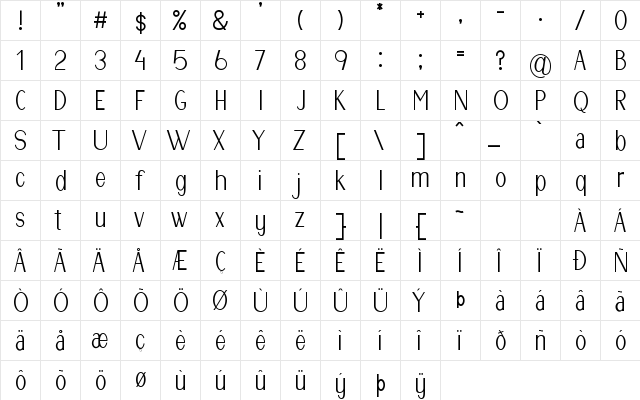
Jufatti Regular
| Foundry | AmruID |
| Designer | AmruID |
Design Context for Jufatti Typeface
Jufatti offers clean, dependable letterforms without strong stylistic allegiance, making it a practical choice for designers who need flexibility.